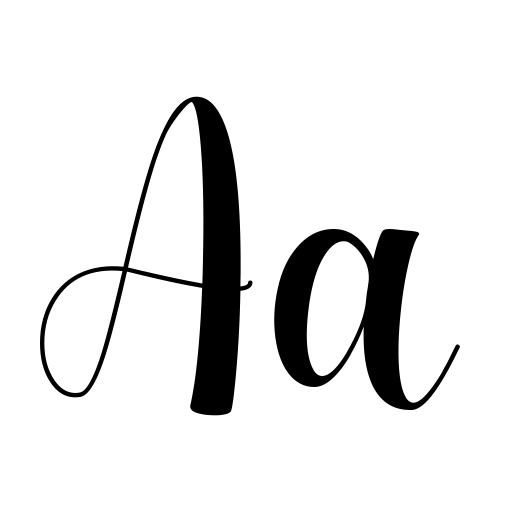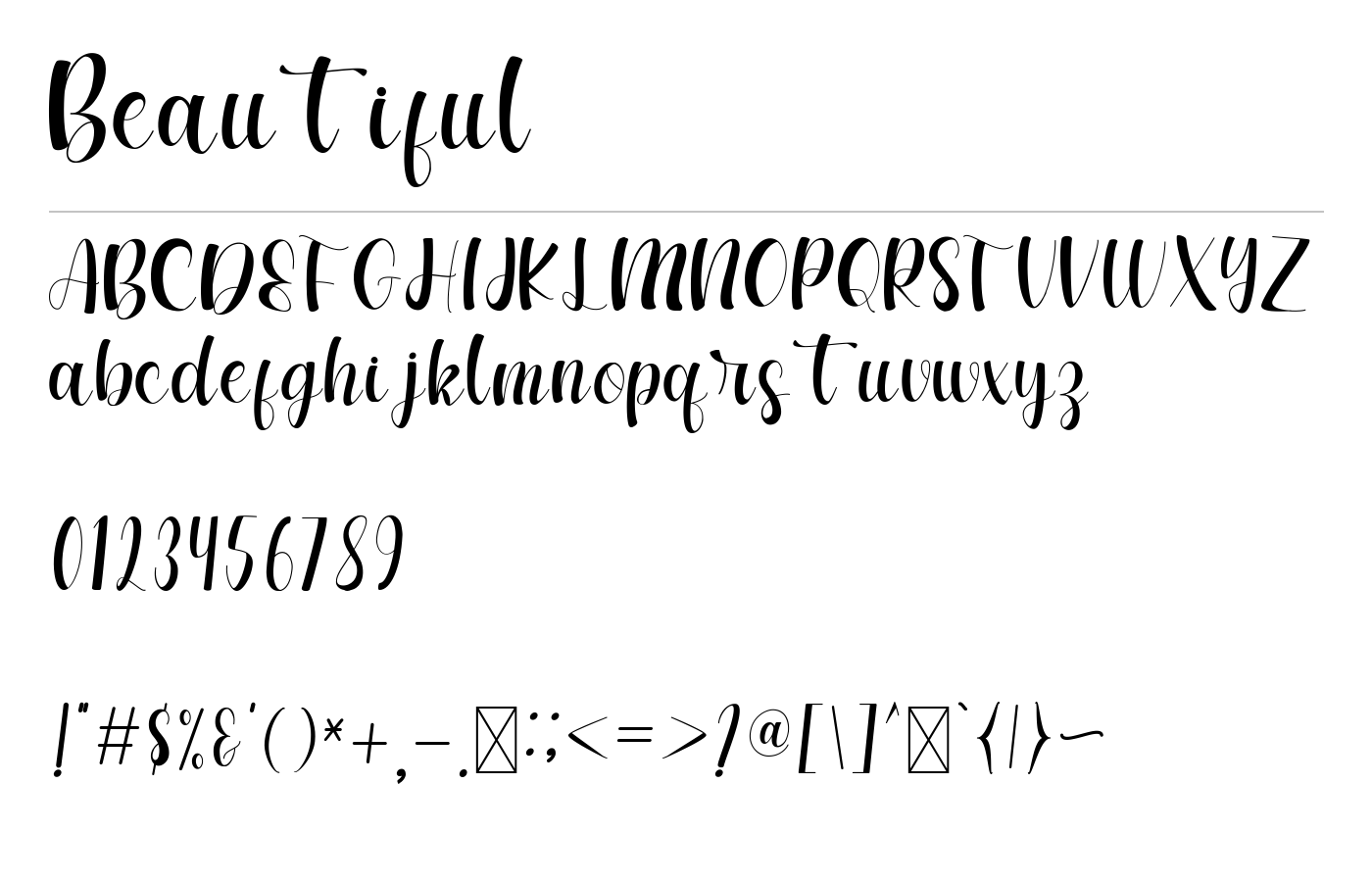
Beautiful Font is an elegant script typeface with fluid, calligraphic strokes and a graceful, feminine appearance. Its slender, moderately high x-height letters and subtle contrast make it perfect for sophisticated branding, wedding invitations, and stylish headlines that require a touch of charm and warmth. This font shines in designs where a delicate, handcrafted feel is desired, adding personality and refinement without overpowering the composition.
Beautiful Font
About Beautiful Font